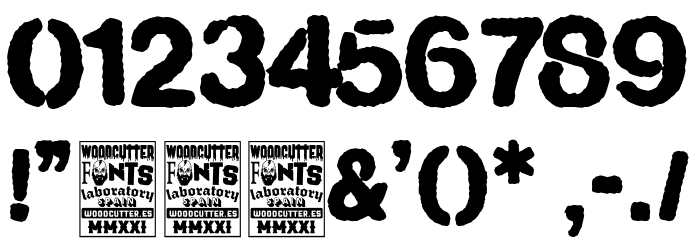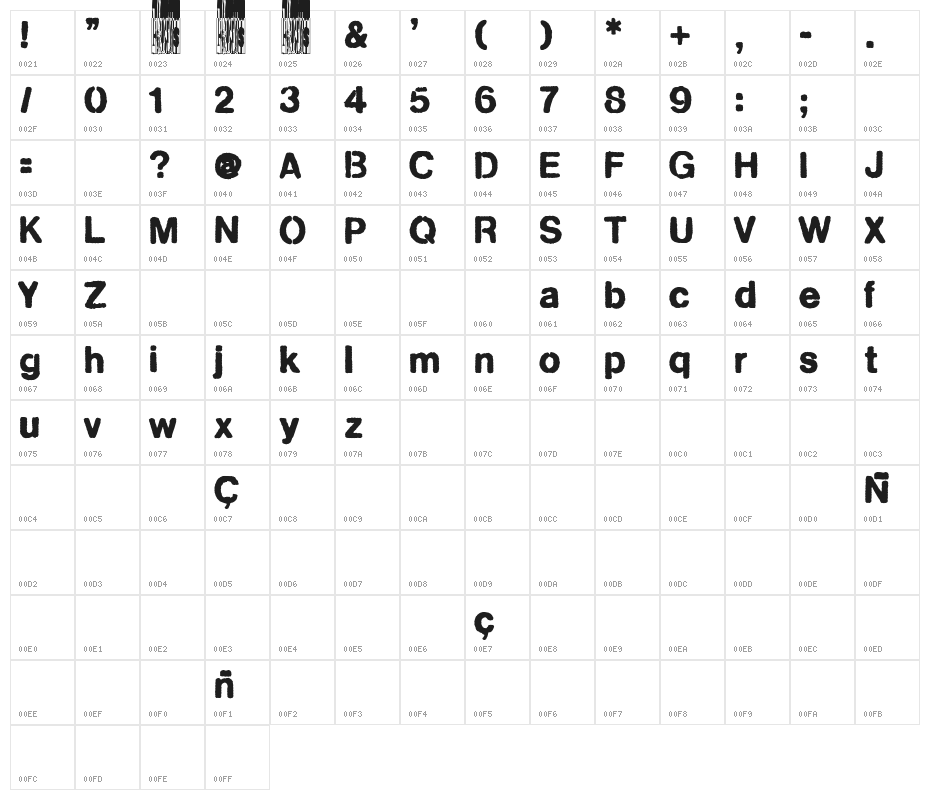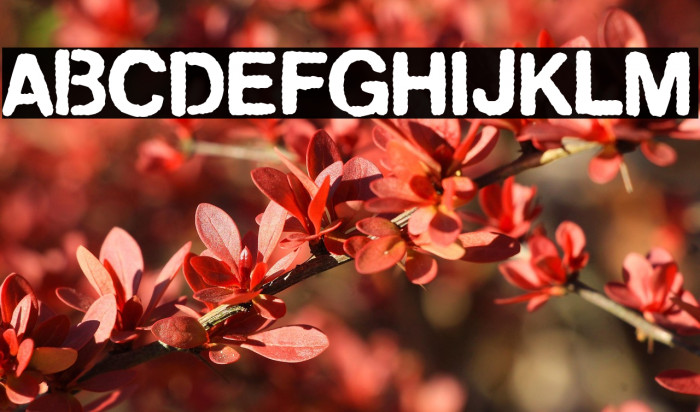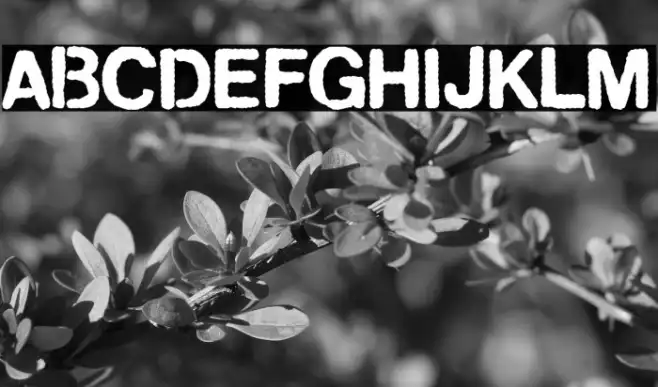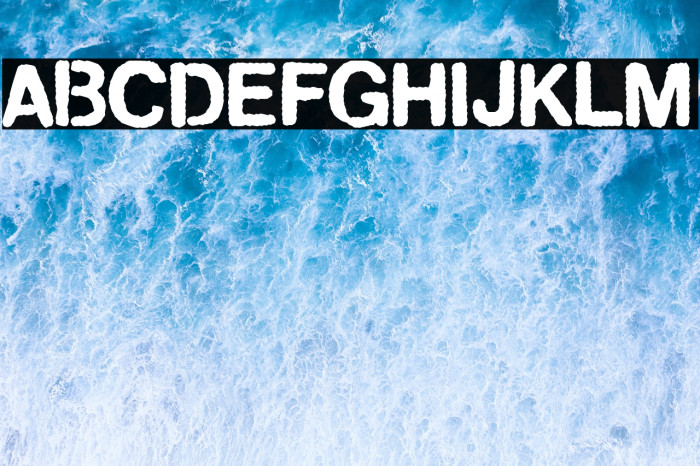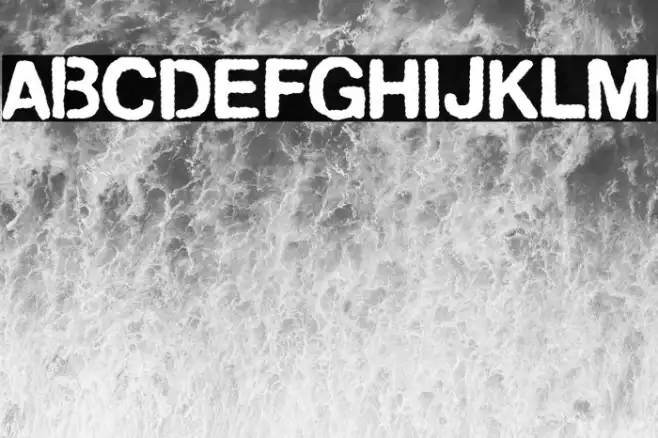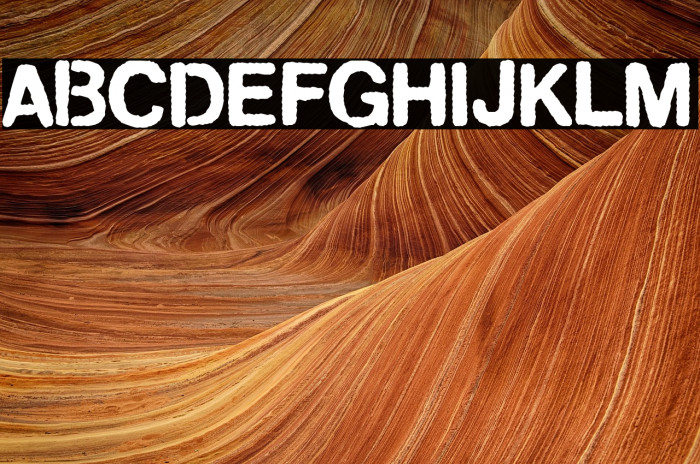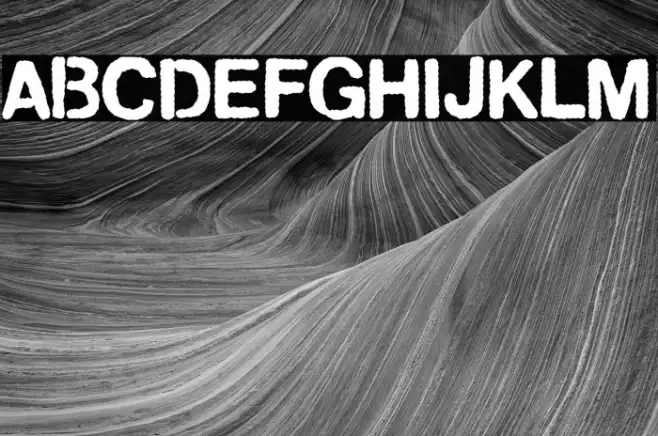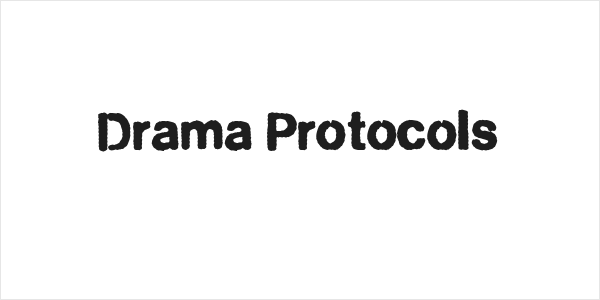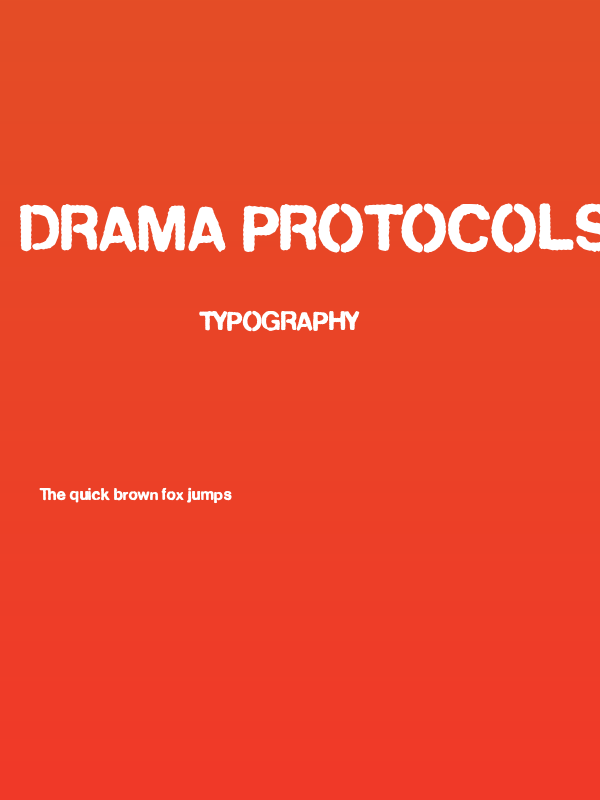
Drama Protocols Font
Drama Protocols Description
This font features a bold and textured appearance, with a hand-drawn, organic feel. The characters are thick and rounded, giving them a playful yet assertive look. The uppercase and lowercase letters maintain a consistent style, with slightly irregular edges that add to the handcrafted aesthetic. The numerals and special characters follow the same design principles, ensuring uniformity across all glyphs. This font's unique texture makes it stand out, providing a sense of depth and personality.